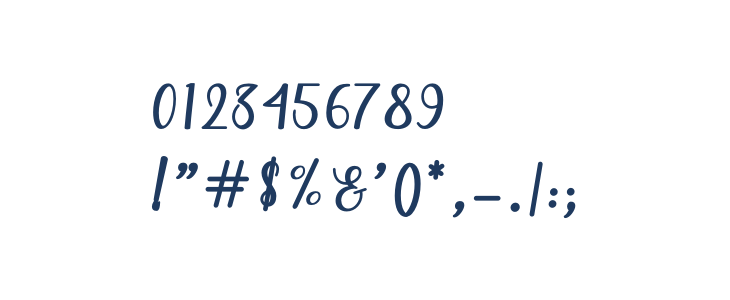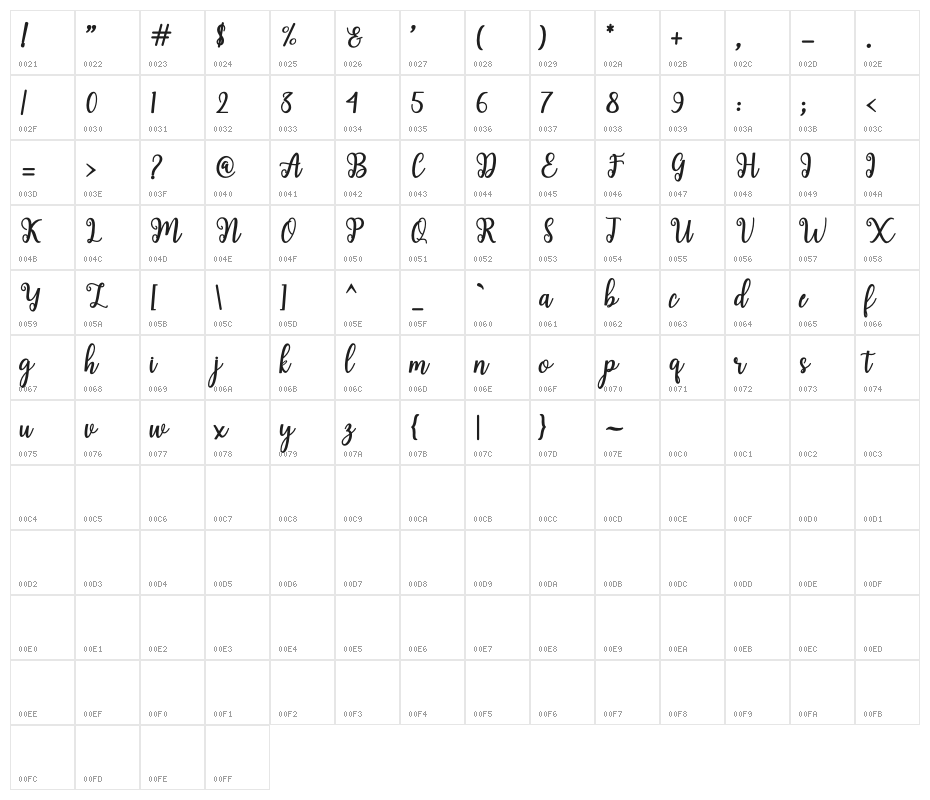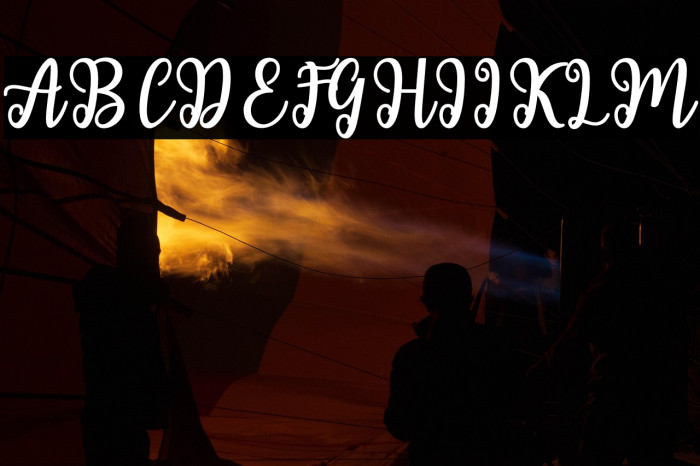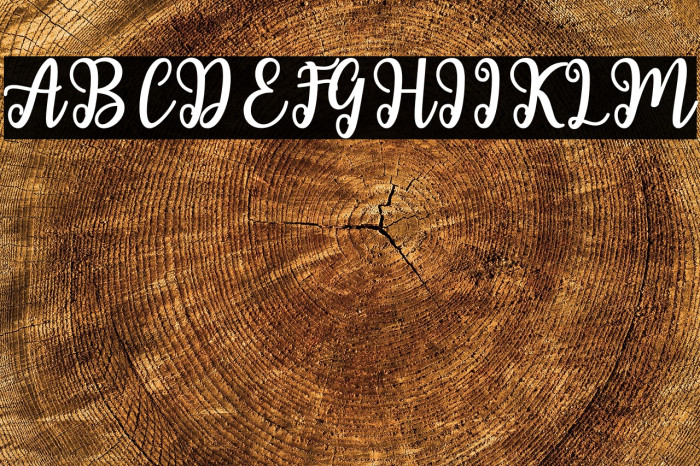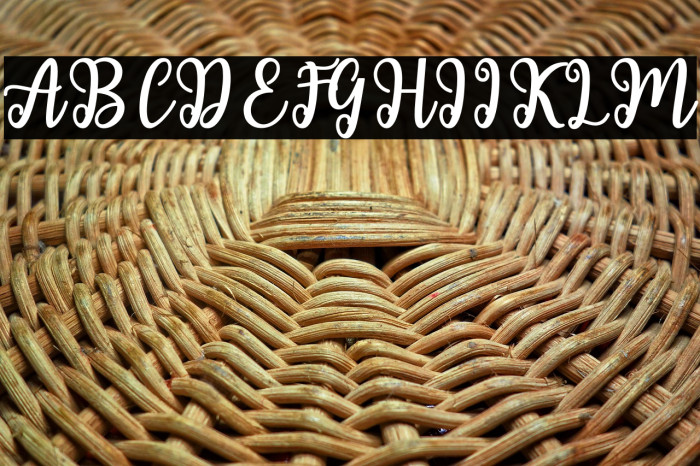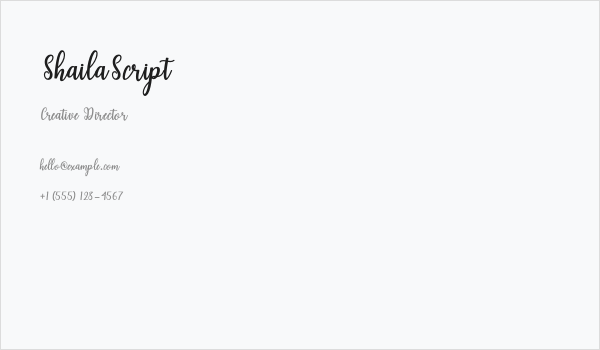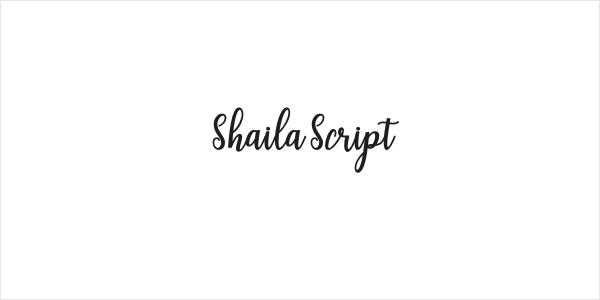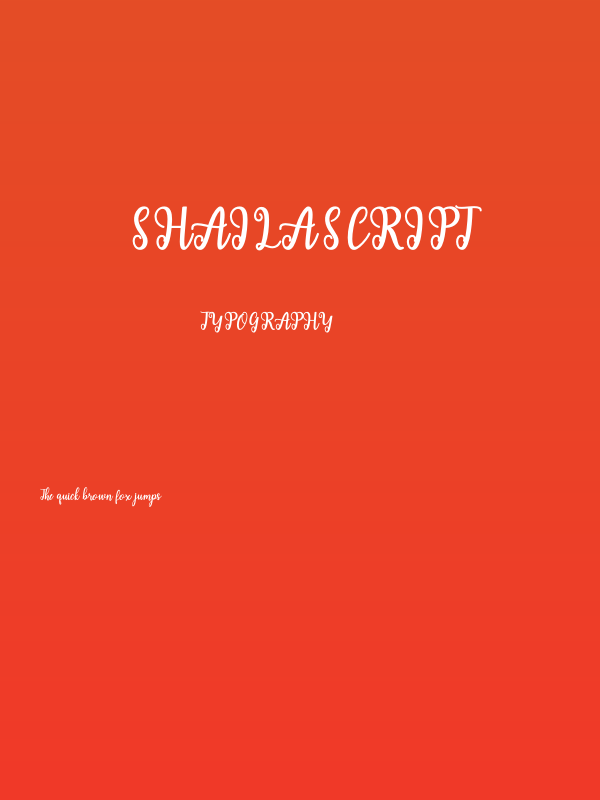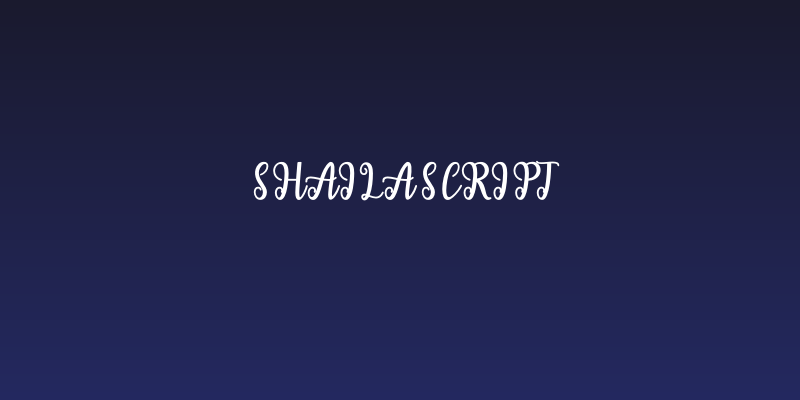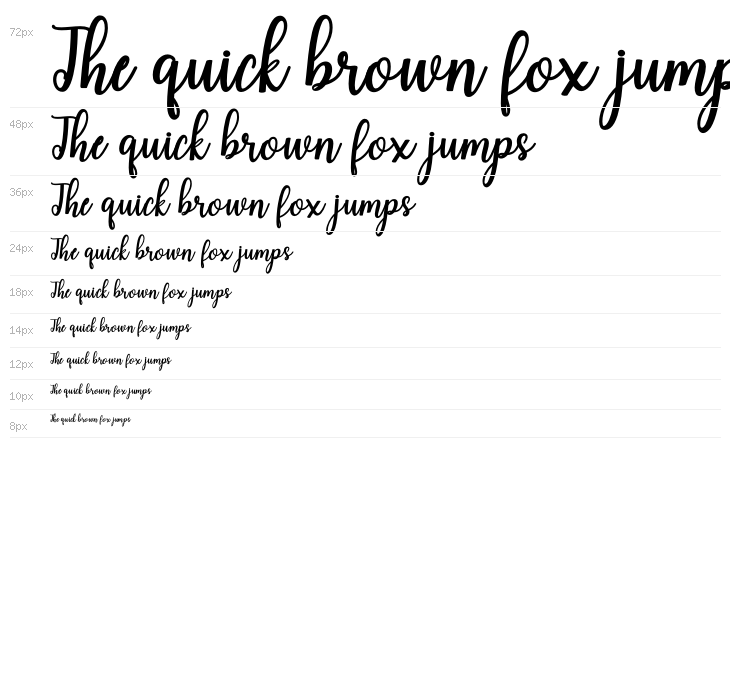
ShailaScript Font
ShailaScript Description
This font exudes a playful and elegant script style, characterized by its flowing, cursive letterforms. The uppercase letters are ornate with loops and swirls, while the lowercase letters maintain a smooth, connected appearance, enhancing readability. The numerals and special characters are designed to complement the script style, maintaining the same fluidity and decorative flair. This font is ideal for projects that require a touch of sophistication and creativity, such as invitations, greeting cards, and branding materials. Its unique style makes it stand out, offering a personal and artistic touch to any design.
| Use Case | Logos, Headlines, Artistic designs |
| Proposed Projects | Ideal for invitations, greeting cards, branding materials, and artistic designs. |